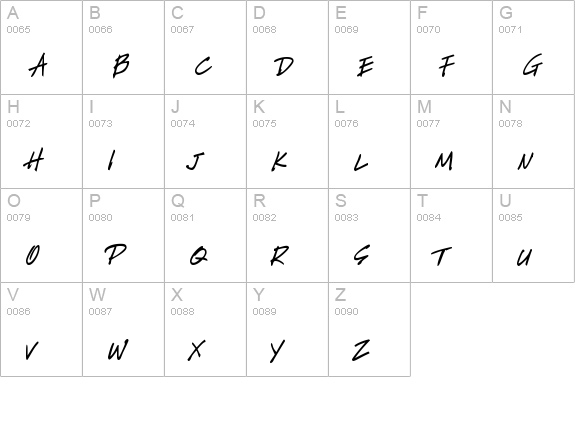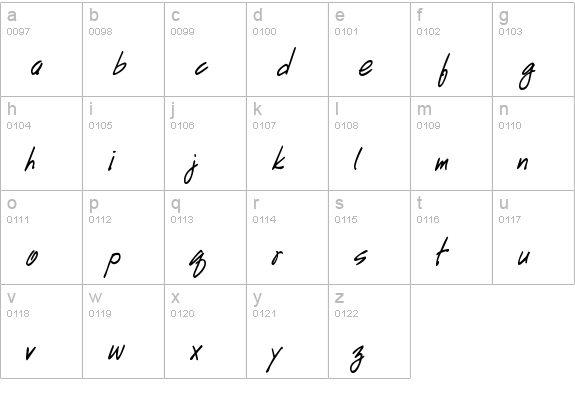
HandScript Bold Font Details
HandScript Bold is a strong, high-contrast variant in the HandScript typeface family \xE2\x80\x94 well suited to headlines, attention-grabbing titles, and strong calls-to-action.
HandScript Bold font is a beautifully crafted typeface that exudes elegance, creativity, and a touch of whimsy. Its bold and flowing strokes give your text a captivating and eye-catching appearance, making it perfect for a wide range of design projects. Whether you're creating invitations, branding materials, or even adding a personal touch to your social media posts, HandScript Bold font is the ideal choice to make your message stand out. Its unique and hand-drawn letterforms add a personal and authentic feel to your designs, leaving a lasting impression on your audience. What sets HandScript Bold font apart is not just its stunning aesthetics, but also its versatility. It effortlessly adapts to various design styles and themes, complementing both modern and vintage aesthetics. With its bold and confident presence, it commands attention without overwhelming the overall design. The best part? HandScript Bold font is available for free! You can easily download it at FontsMarket.com, a trusted source for high-quality and diverse font collections. This means that you can enhance your designs with this exquisite font without having to worry about any additional costs. It's a truly valuable asset for any designer or creative individual. So, why wait? Discover the beauty and versatility of HandScript Bold font today. Download it for free at FontsMarket.com and unlock a world of possibilities for your design projects.